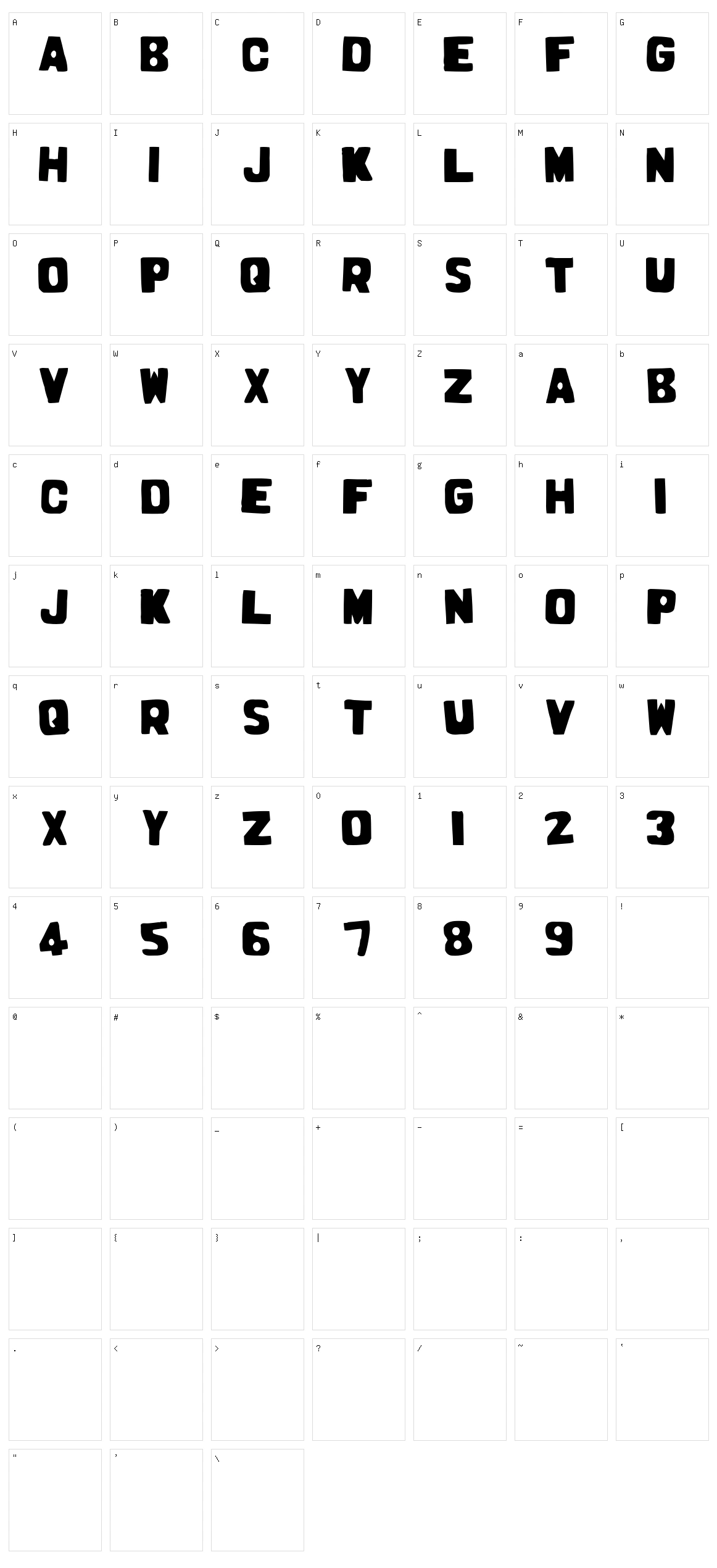
The free font Prodotto In Cina is carefully designed by Dibujado, showcasing a thoughtful balance of creativity and usability and falls under the Eroded font style. When you download the ZIP file, it contains only 31.44 KB of font files, making it lightweight and quick to download. Please review the license details below to understand permitted usage and distribution rights. If license information is not available, we recommend using this font for personal projects only or contacting the author directly for commercial usage permissions.